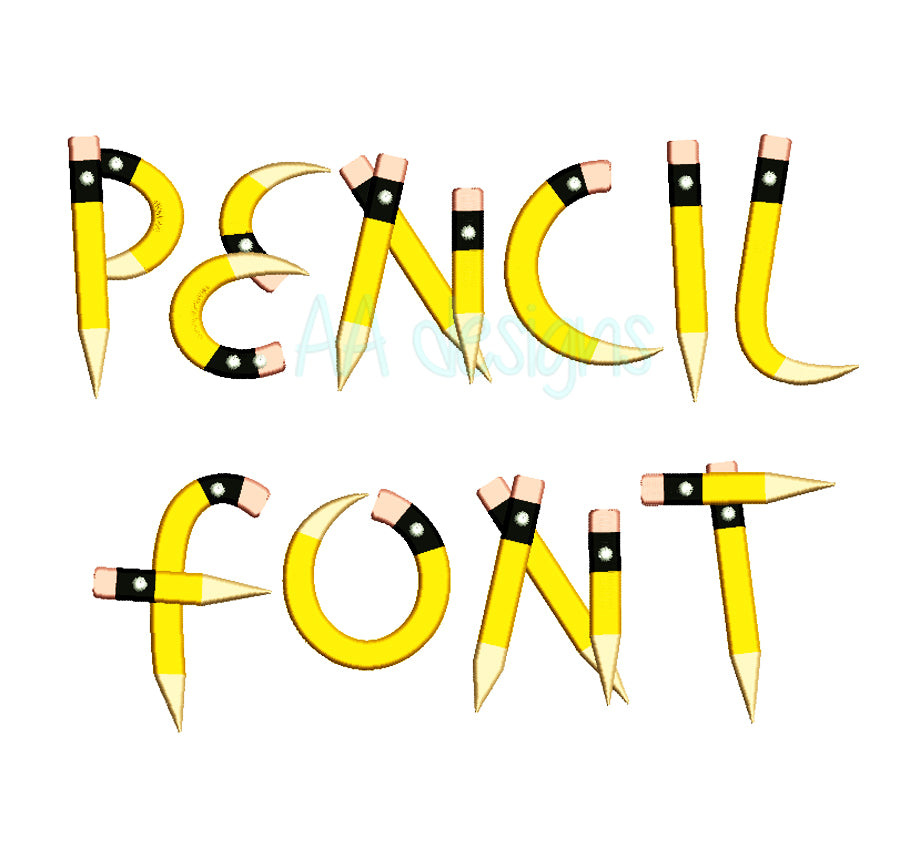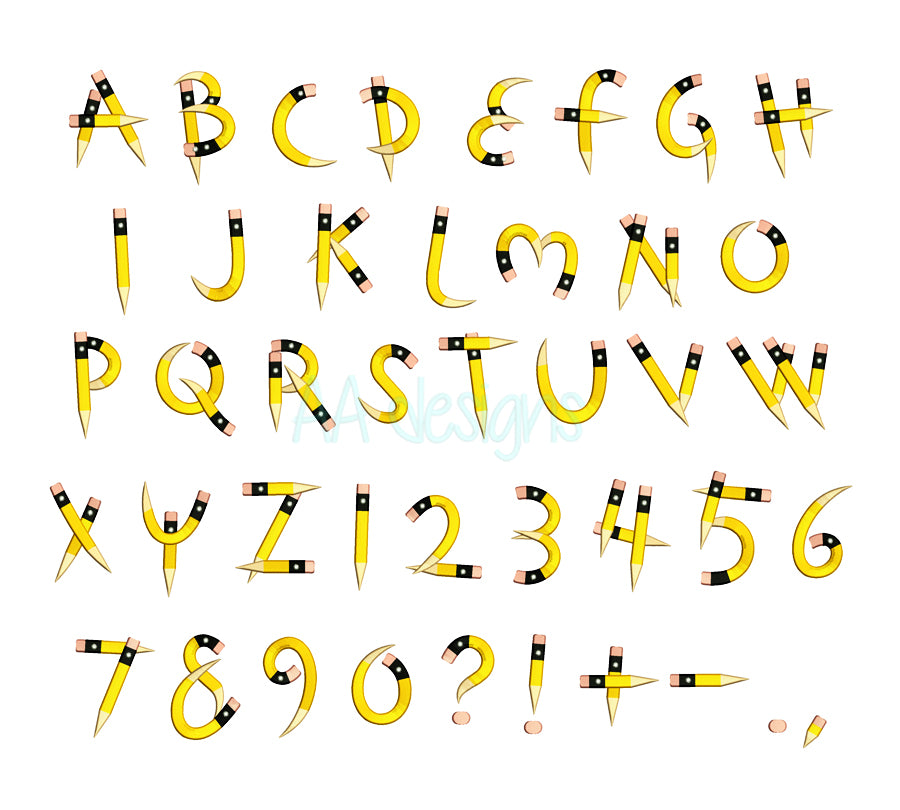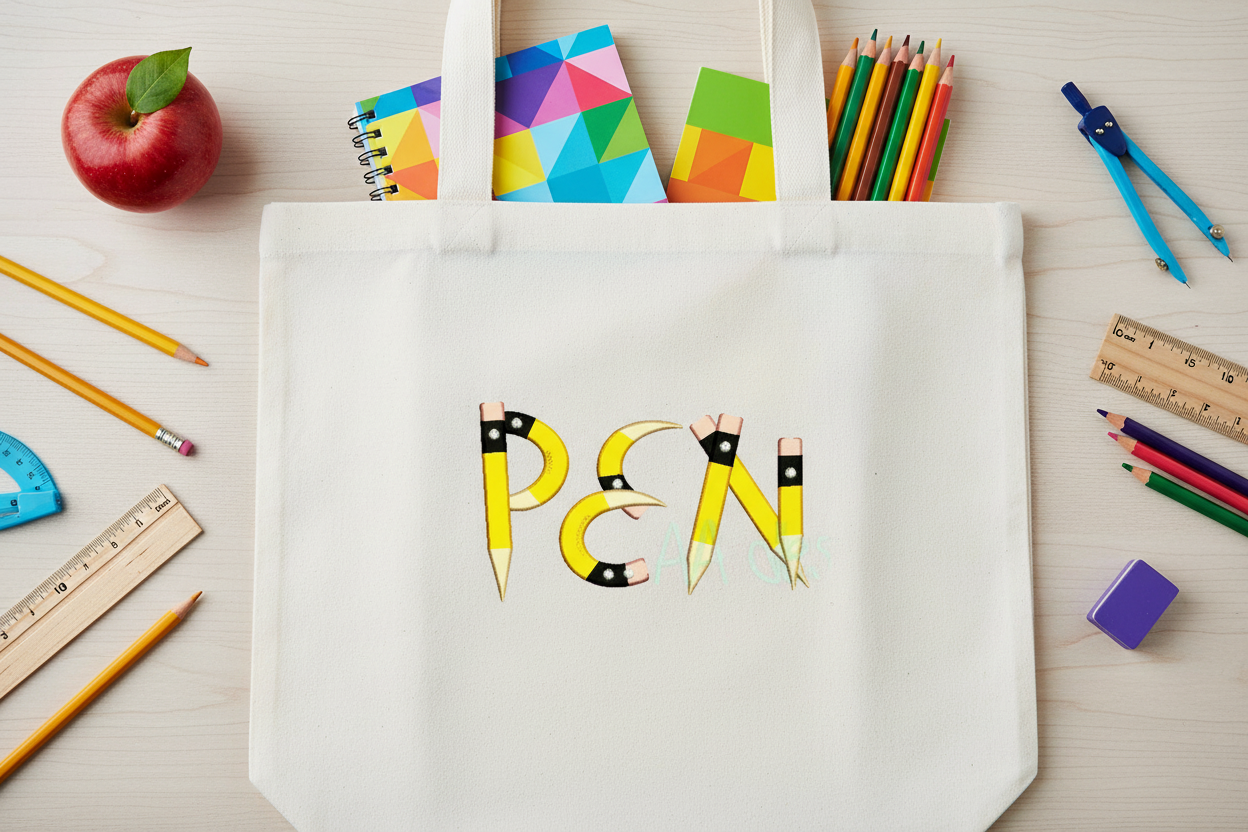
Pencil Embroidery Font - Machine Embroidery Font 1" 2" 3". BX included
Add a fun, playful touch to your embroidery projects with the Pencil Embroidery Font — a charming font inspired by pencil lettering, perfect for school-themed items, teacher gifts, tote bags, apparel, and more.